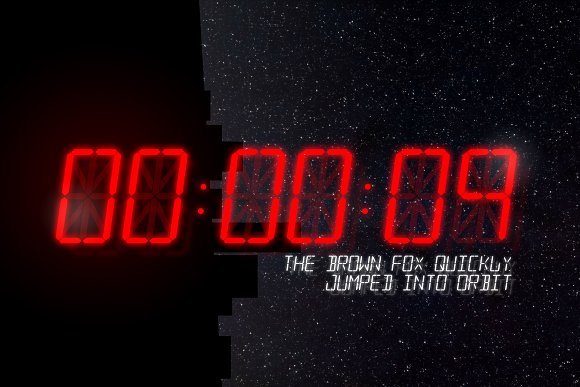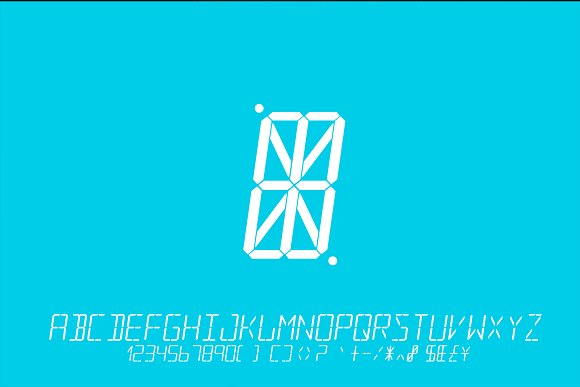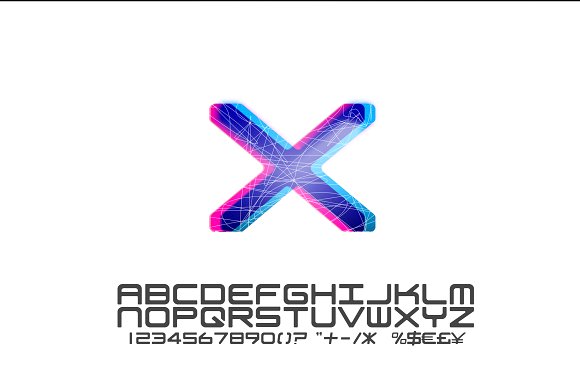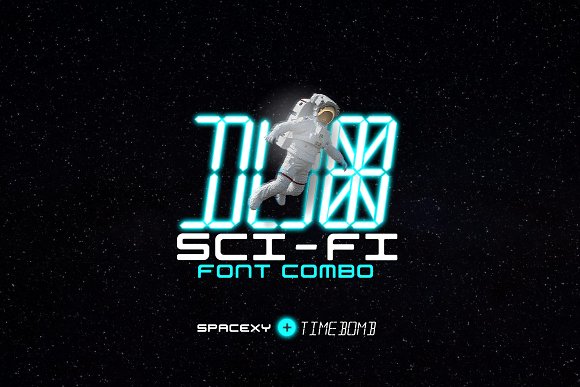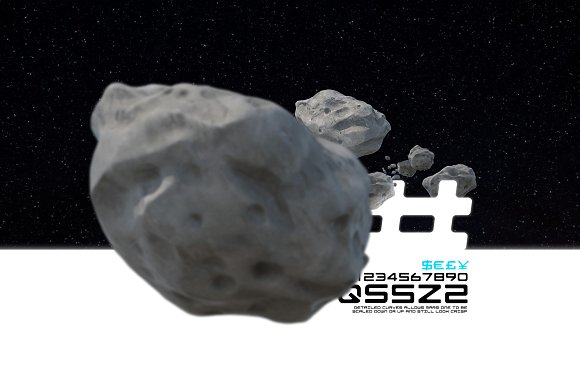
Sci-fi Font Collection
Get these two awesome Sci-fi fonts in this single awesome bundle.
Spacexy: Is a well-crafted sci-fi font that works well on logos, presentations and science fiction book covers.
TimeBomb A classic LCD(Liquid Crystal Display) font. It was created using a real LCD grid making it is 100% accurate.